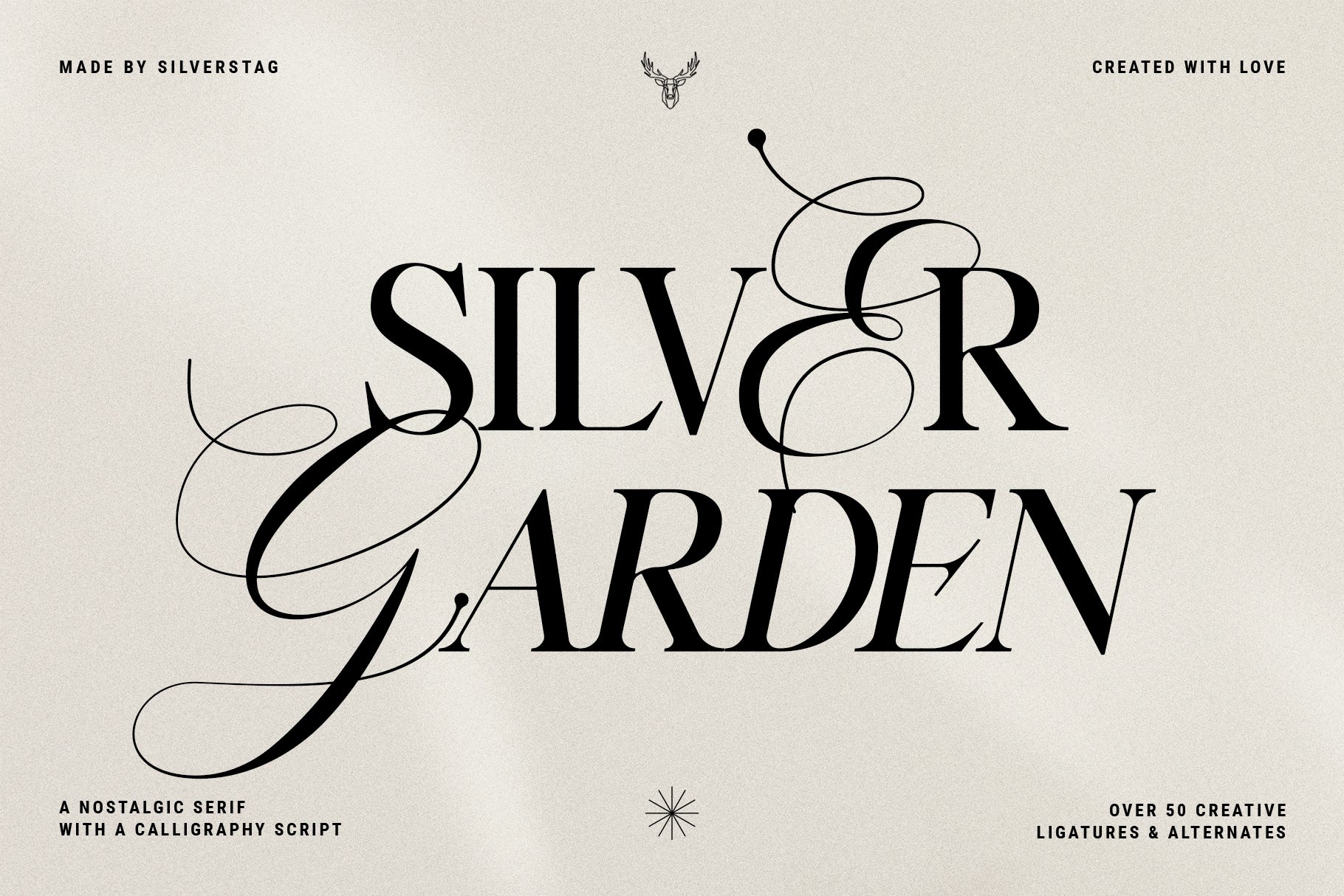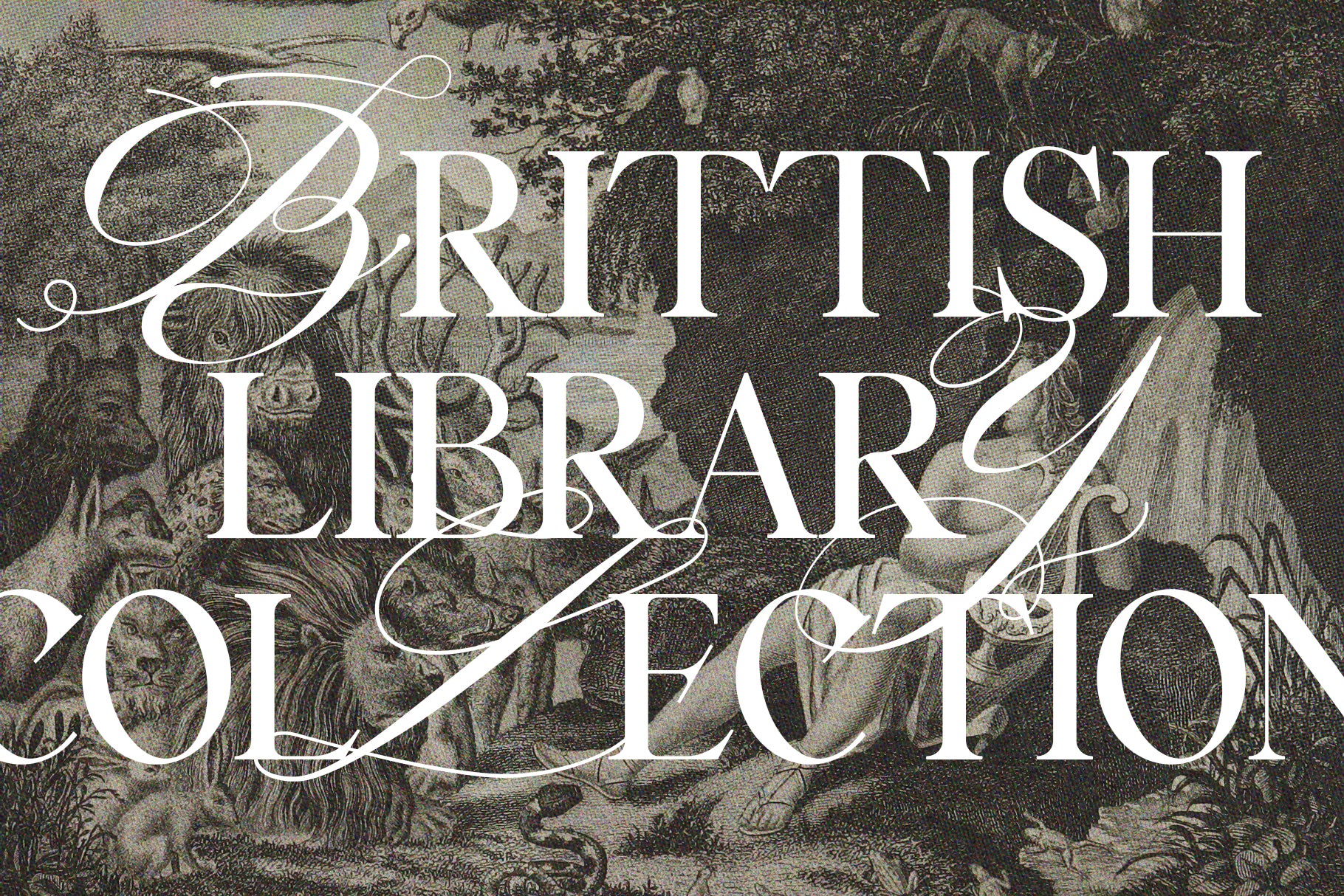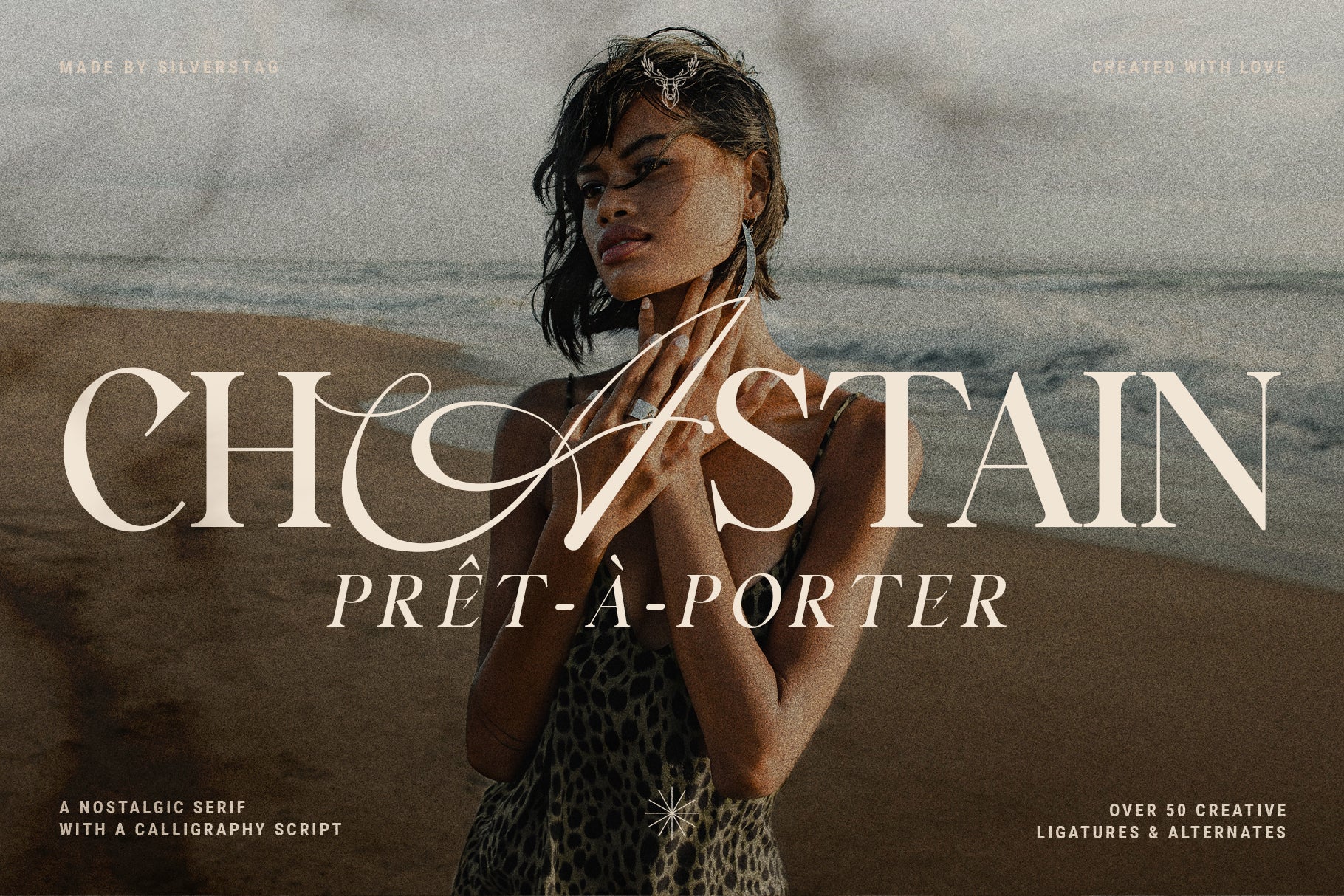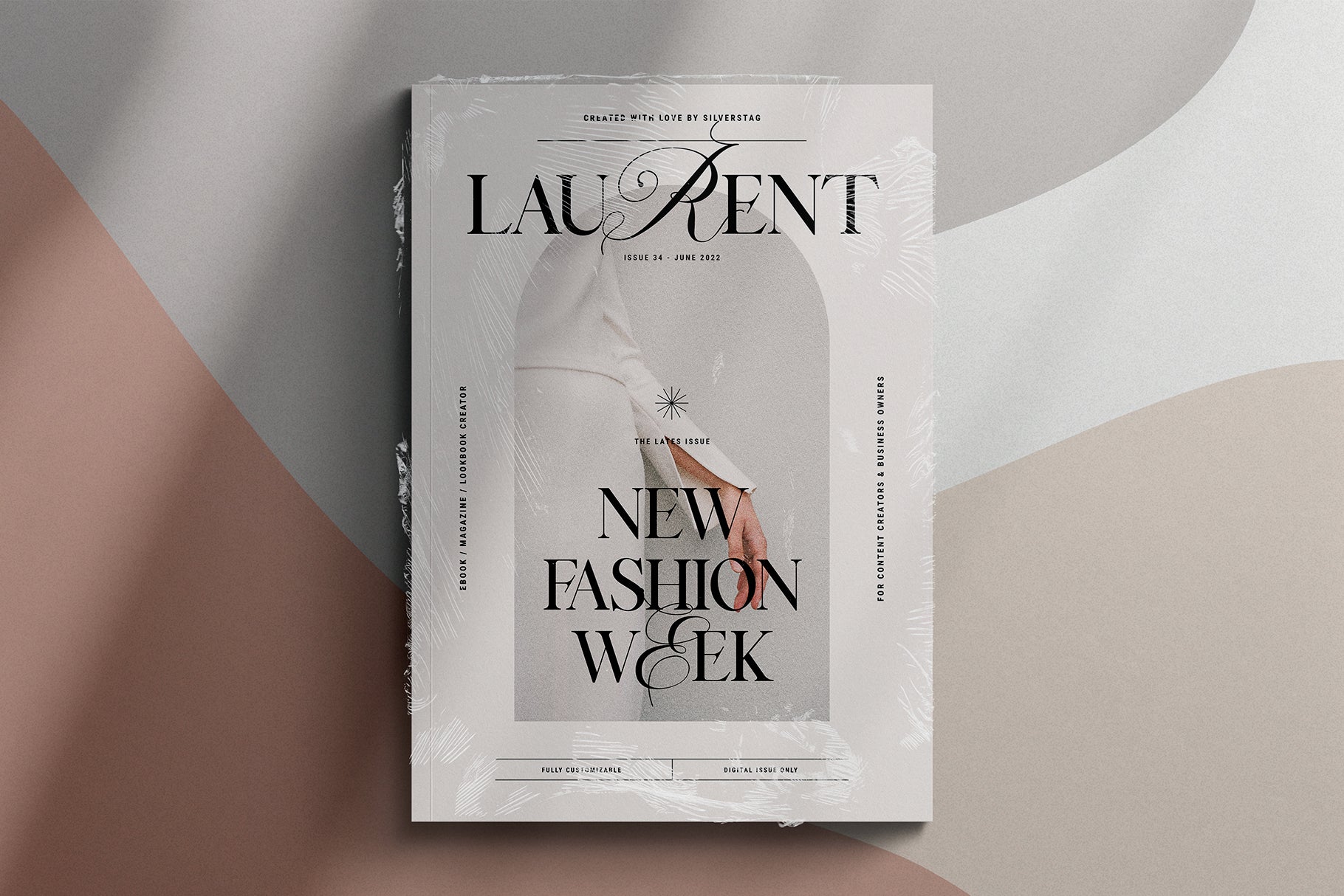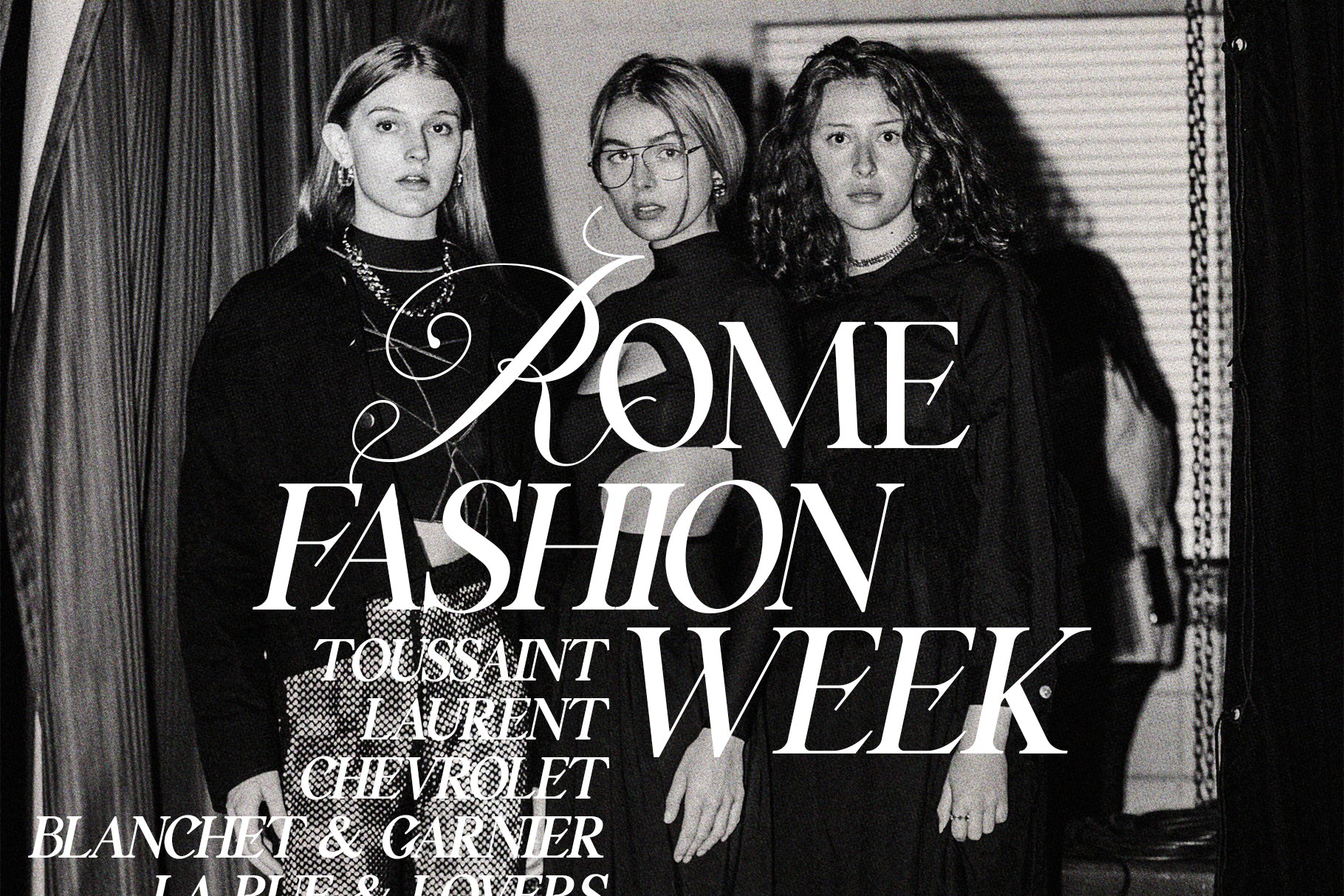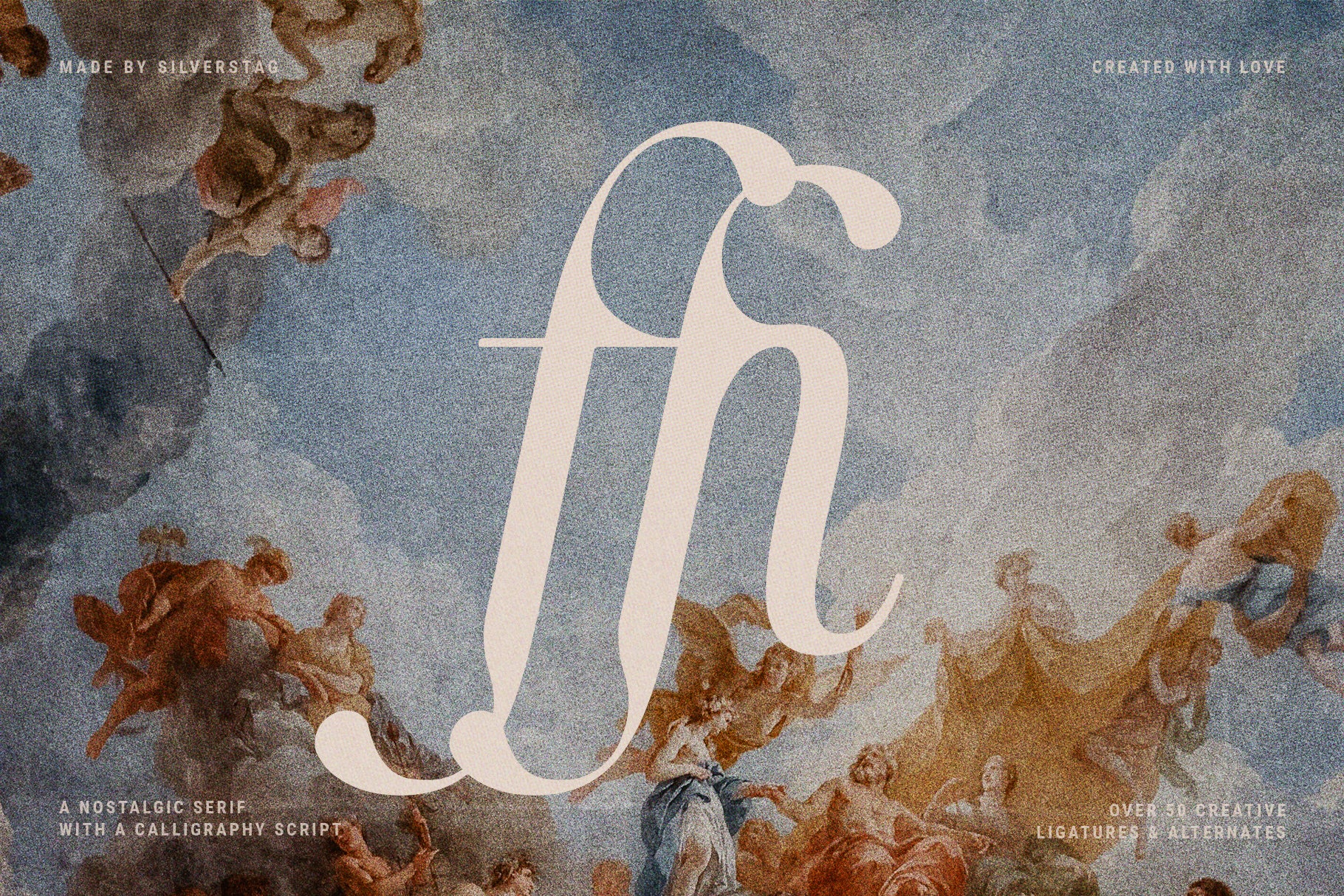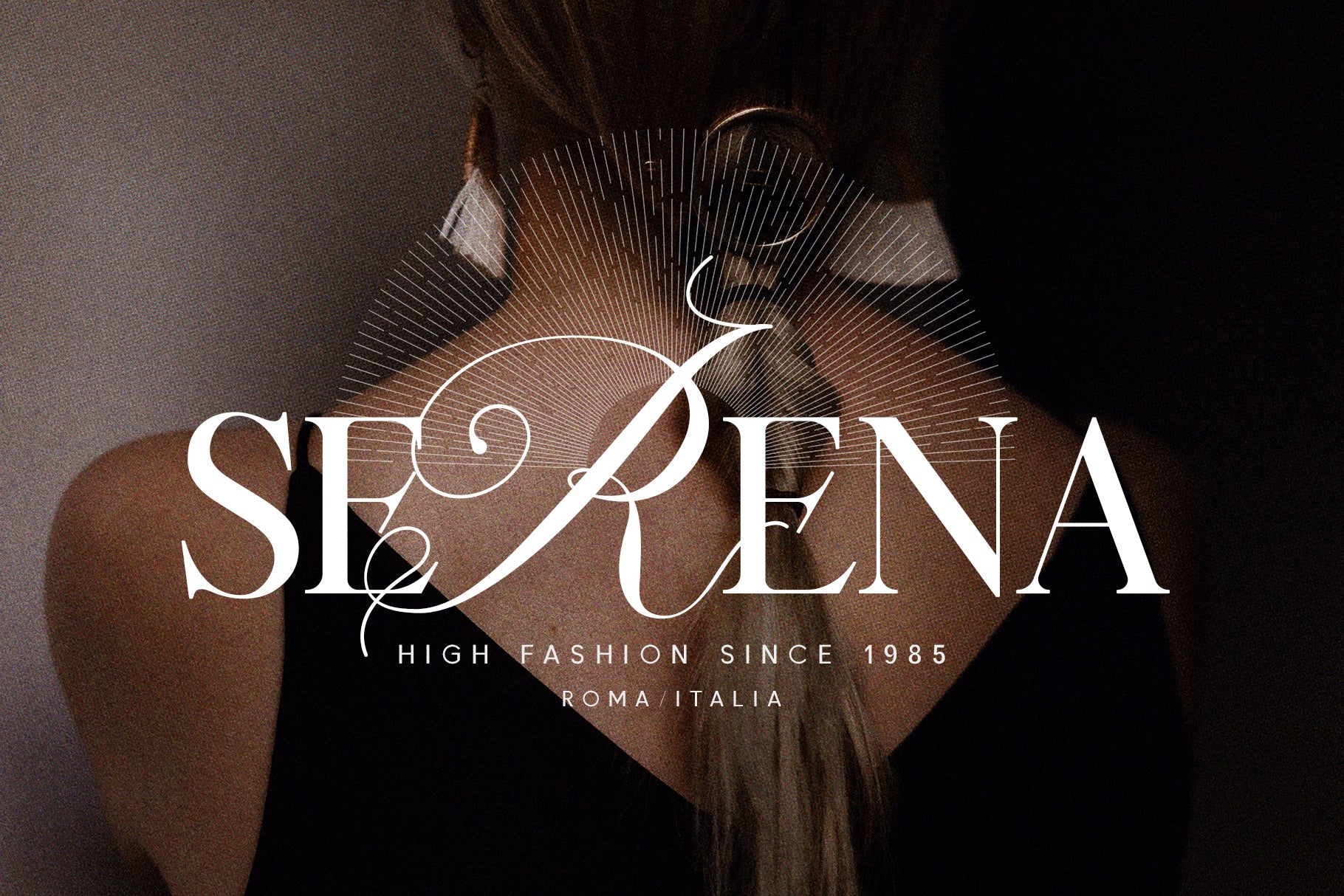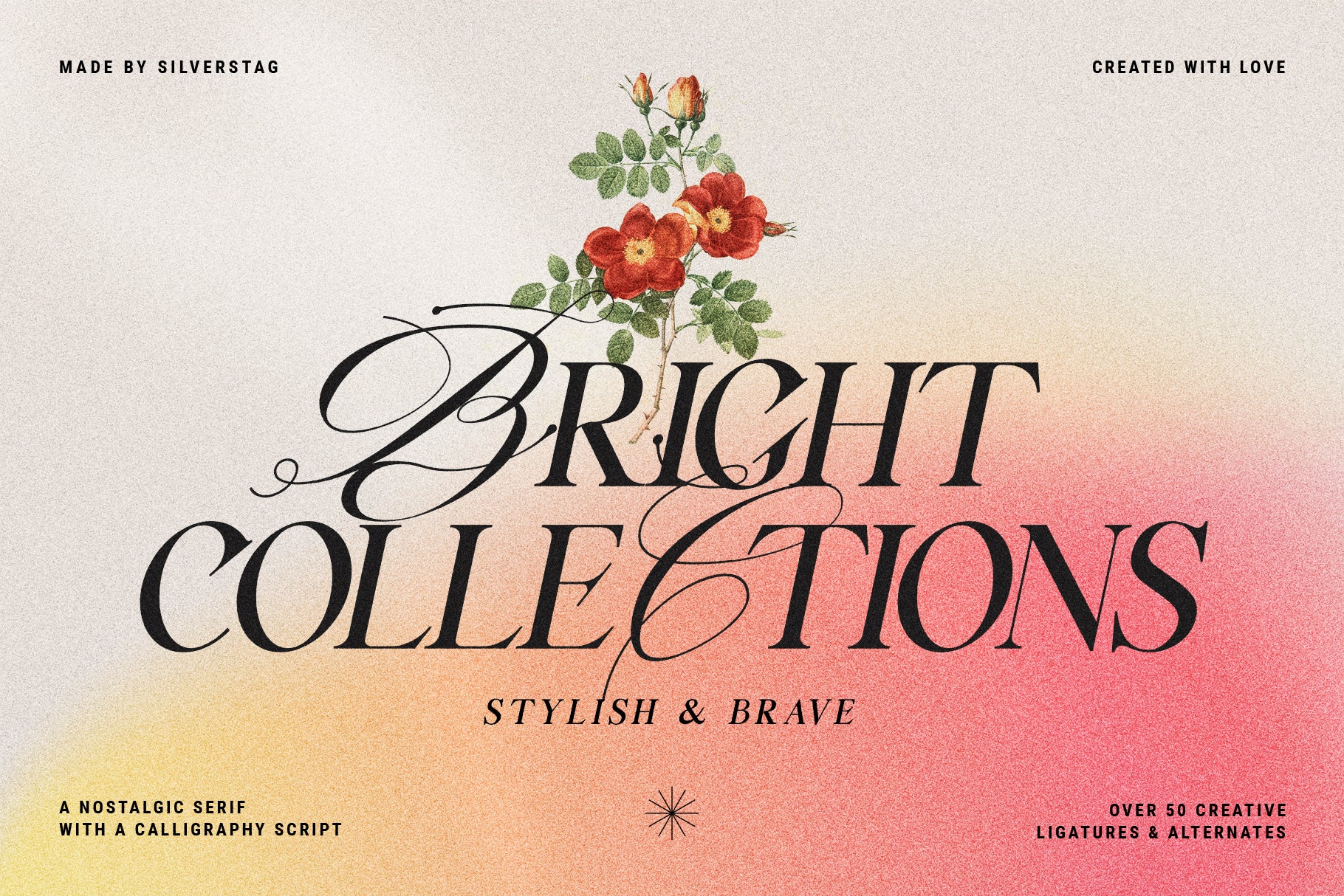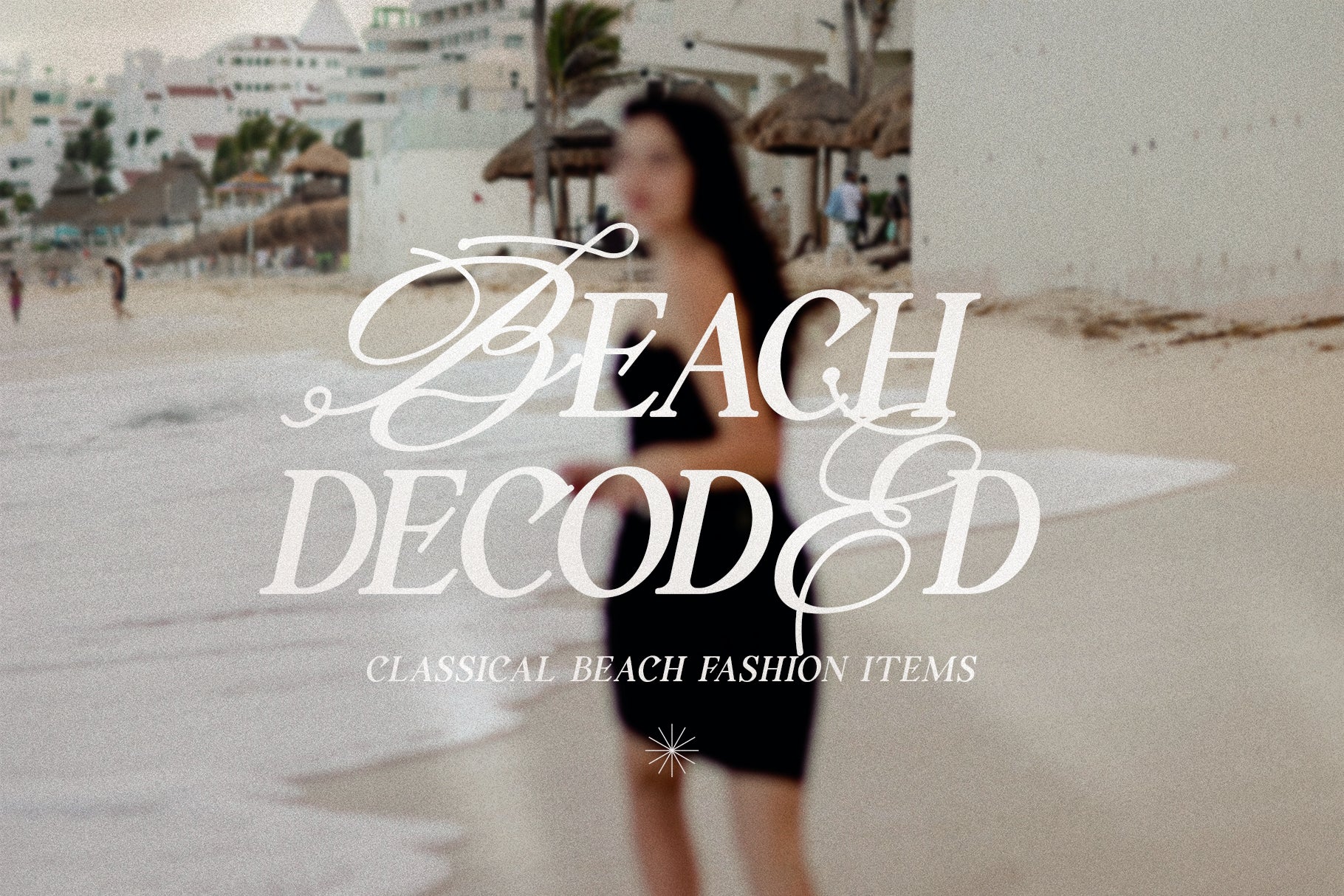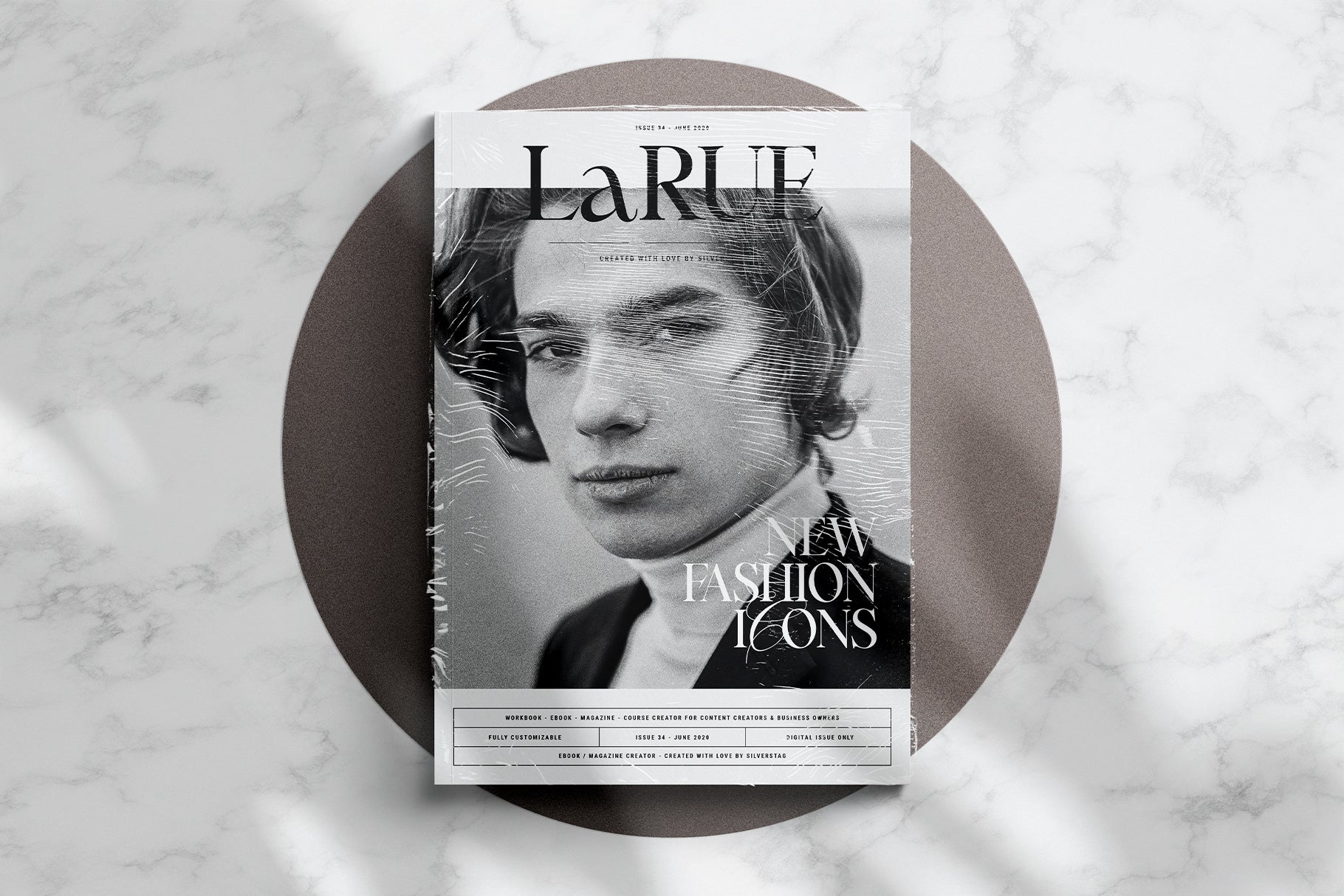
Silver Garden is a unique and heartfelt nostalgic typeface that captures a beautiful balance between vintage charm and modern sophistication. Inspired by timeless elegance and designed with a personal touch (hence the “Silver” in its name), this font family offers both versatility and character for a wide range of creative projects.
The collection includes four font styles—Regular, Italic, Bold, and Bold Italic. In Regular and Italic, Silver Garden embraces a cool, chic, and fashionable elegance, while in Bold and Bold Italic, it introduces subtle curves that add a vintage and nostalgic flair. Each style is enriched with over 25 lowercase ligatures and a full set of uppercase script alternates, giving you endless ways to personalize your typography.
Perfect for branding, editorial layouts, logo designs, social media graphics, and stylish packaging, Silver Garden will infuse your work with effortless charm and lasting sophistication.